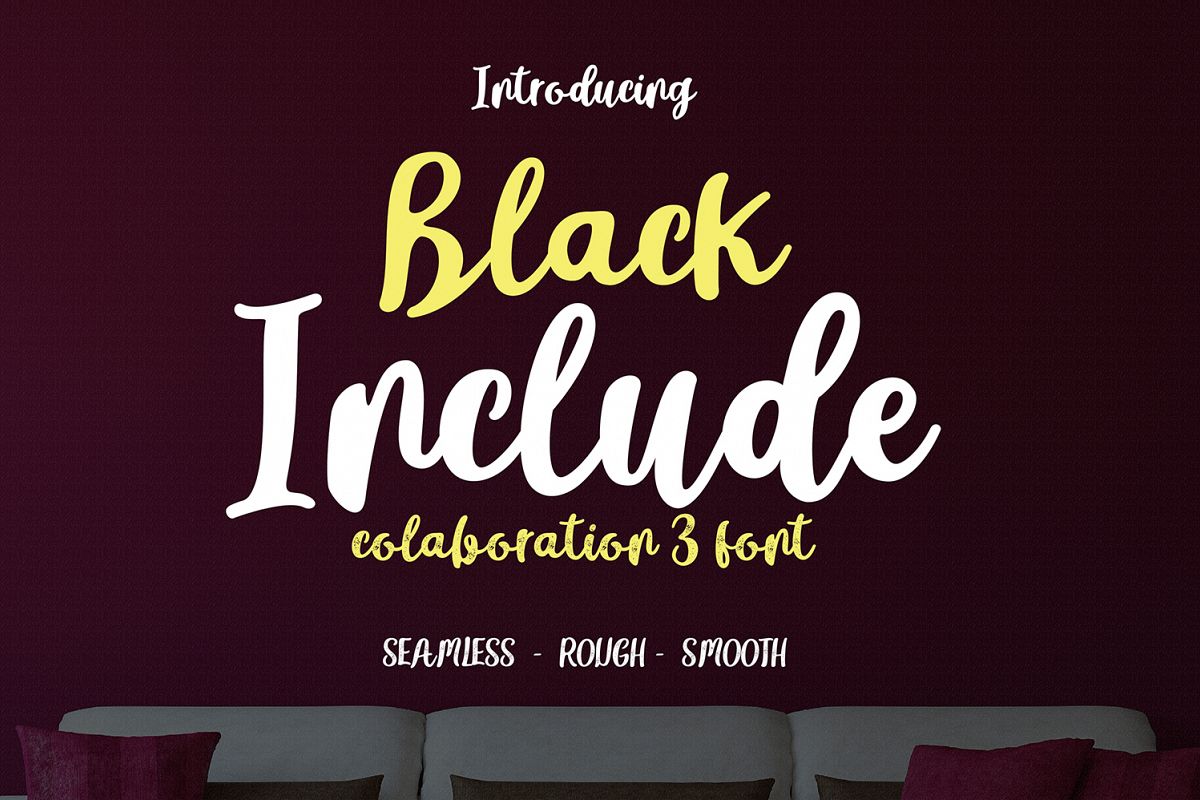
Black Cloud This combination of fonts includes comic bold script and handwriting style and also has a different style seamless,rough, smoot. To complement the font set, Black Cloud offers 3 styles in the family.Black Cloud is ideally suited for branded branding logo logos to design a sweet logo, social media post, or even to design your T-shirt. Hopefully this gives some inspiration how you can use extra graphics, hopefully in this script font package we can together to make something amazing.Font Colection.. Black Cloud. Otf.Ttf